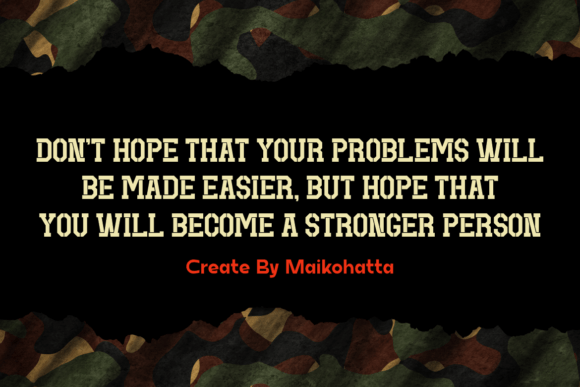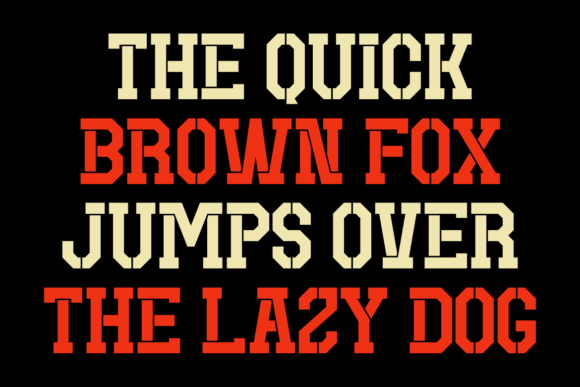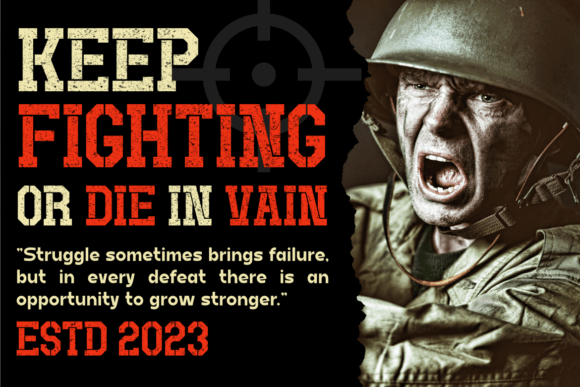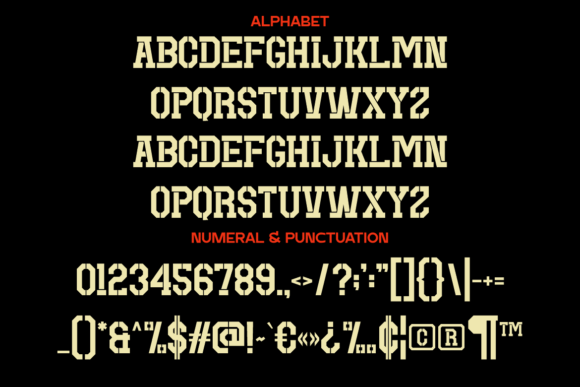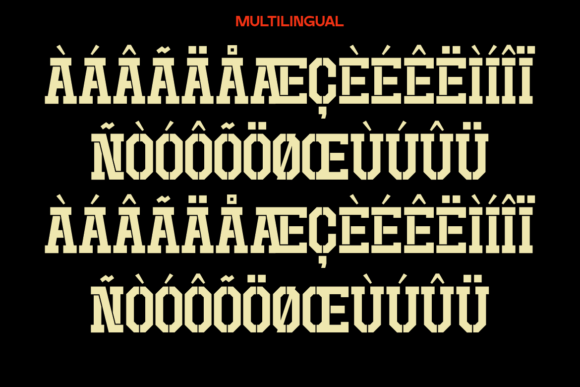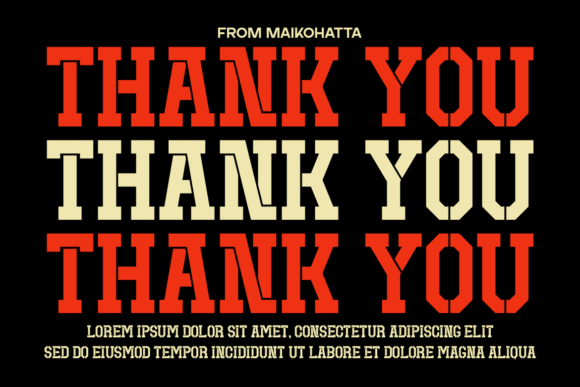
Introduction to Bandex Font
Have you ever found yourself staring at a blank page, waiting for inspiration to strike for your next creative project? The blank canvas can be daunting, but sometimes, all it takes is one spark to set your imagination ablaze. For designers, the right font can be that spark, elevating your design from ordinary to extraordinary. Enter the Bandex Font, a unique and captivating typeface that’s about to take your designs to the next level.
The Bandex Font is a stencil font that boasts a distinctive style, characterized by holes or “cutouts” in each letter and symbol. This bold and striking design element makes it an excellent choice for designers looking to create messages that are easily recognizable and convey a strong impression. Whether you’re working on a high-profile project or a personal creative endeavor, the Bandex Font is a valuable design resource that can help you achieve your vision.
Key Features of Bandex Font
- Features a unique, modern design with a transparent background, making it perfect for overlaying on images or videos.
- Perfect for use in logos, headings, and body text in your creative project, thanks to its clean and elegant design.
Honest Review: Bandex Font
I recently stumbled upon the Bandex Font, and I’m excited to share my thoughts on this design resource. As a designer, I’m always on the lookout for high-quality fonts that can elevate my creative projects. The Bandex Font did not disappoint!
- ✨ The transparent background makes it easy to use in a variety of design contexts.
- ✨ The font is well-designed, with a clean and modern aesthetic that’s perfect for contemporary designs.
- ⚠️ The font is not as versatile as some other options on the market, and may not be suitable for all types of designs.
- ⚠️ The font is not scalable to the same level as some other high-end fonts, which may limit its use in large-scale designs.
Overall, I’m impressed with the Bandex Font. While it may have some limitations, it’s a solid choice for designers who need a high-quality, free font for their creative projects. With its clean design and transparent background, it’s a great addition to any design resource library.
The Bandex Font is perfect for creative projects such as logo design, branding, and advertising. Its unique style and transparent background make it ideal for use in digital design and print materials.